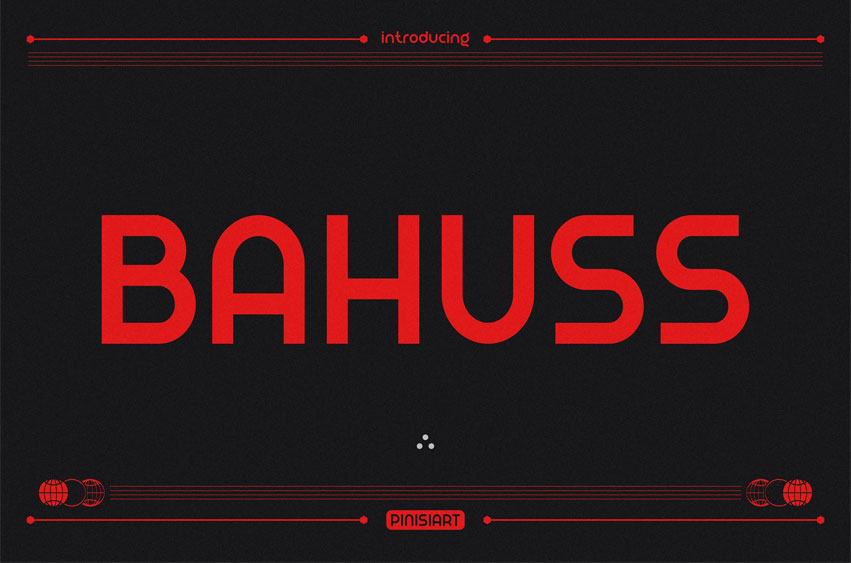
Bahuss Font
Bahuss Font is a brutalist-inspired, modern display typeface designed for techno-optimists, designers of disruption, and rebels of the norm. With monospaced mechanics, sharp curves, and brutal geometry, Bahuss delivers futuristic attitude and machine-age clarity.
It’s Neo-Tech. Retro-Digital. Cyber-Punk. All edge.
• Bahuss is made for creators who live on the edge of:
• Tech startups & cyber brands
• Brutalist architecture studios
• Futuristic UI/UX interfaces
• Gaming & metaverse experiences
• Sci-fi movie posters
Experimental fashion or music branding
If your work questions the future or challenges convention, Bahuss is your typography weapon.
Bahuss isn’t here to blend in. It’s here to build a visual system. An interface between language and rebellion.